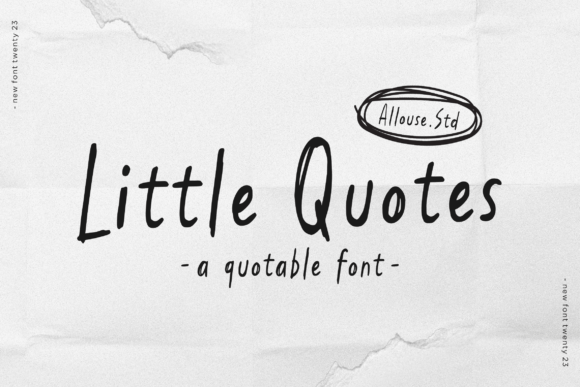
Embrace the captivating charm of Little Quotes Font, a script font family that exudes elegance and sophistication. Designed by the talented allouse.studio, Little Quotes Font is a visual masterpiece, perfect for adding a touch of warmth and personality to your creative projects. Its fluid strokes and graceful lines make it the ideal choice for film posters, where every word carries weight and emotion.
Unlike ordinary fonts, Little Quotes Font possesses an innate ability to transform ordinary words into quotable statements. Its ability to capture the essence of a message and amplify its impact is truly remarkable. Whether you're designing product packaging, branding projects, or creating captivating social media content, Little Quotes Font has the power to elevate your words and make them shine.
Imagine the allure of a wedding invitation adorned with Little Quotes Font, where each letter dances across the page, conveying the joy and excitement of the special day. Or envision the impact of a magazine article brought to life with Little Quotes Font, where each word captivates the reader and draws them into the story. It's a font that not only communicates but also evokes emotions, leaving a lasting impression on your audience.